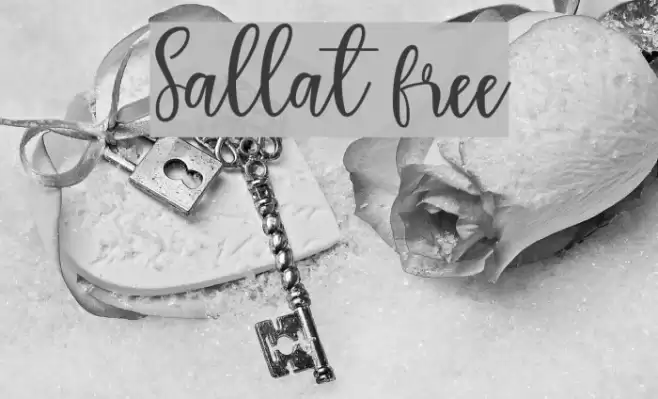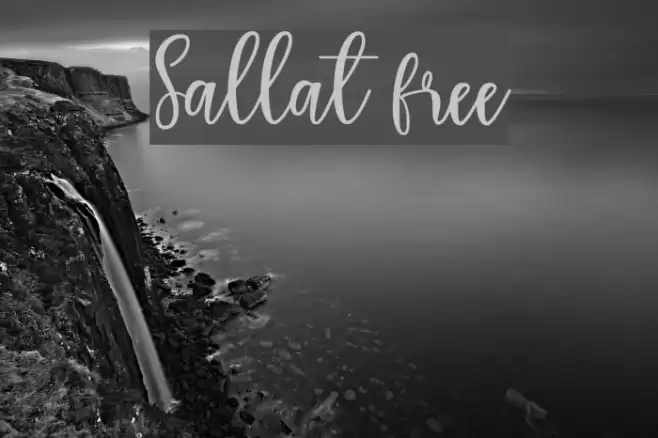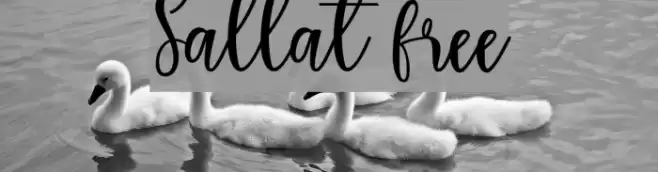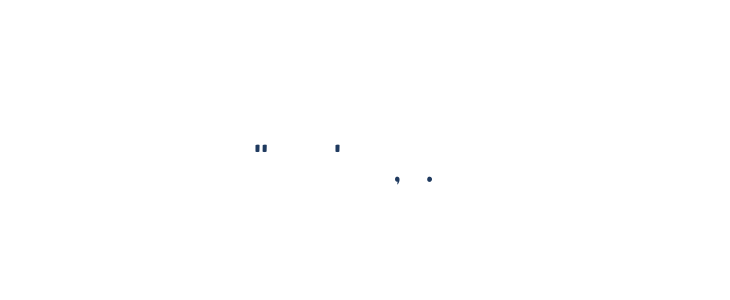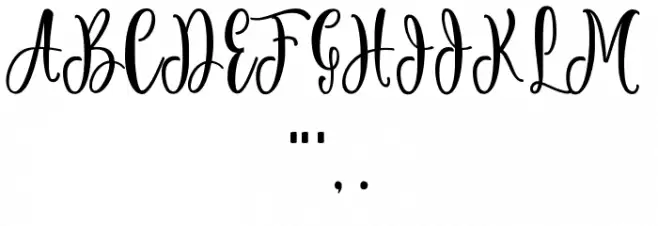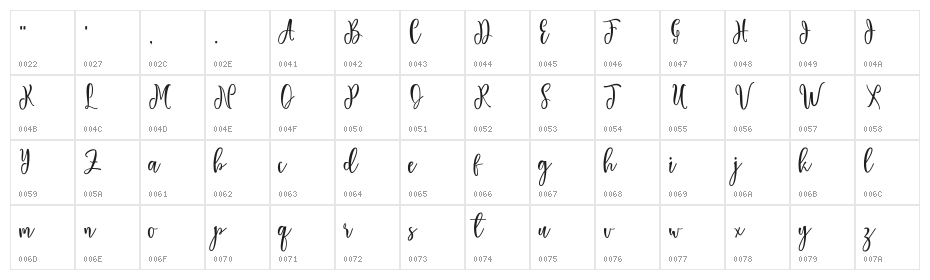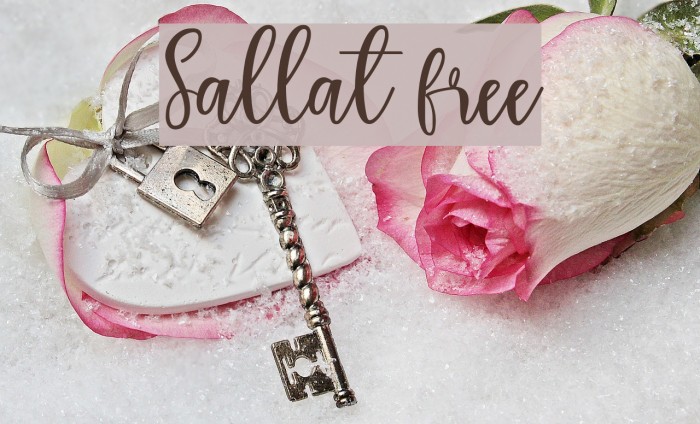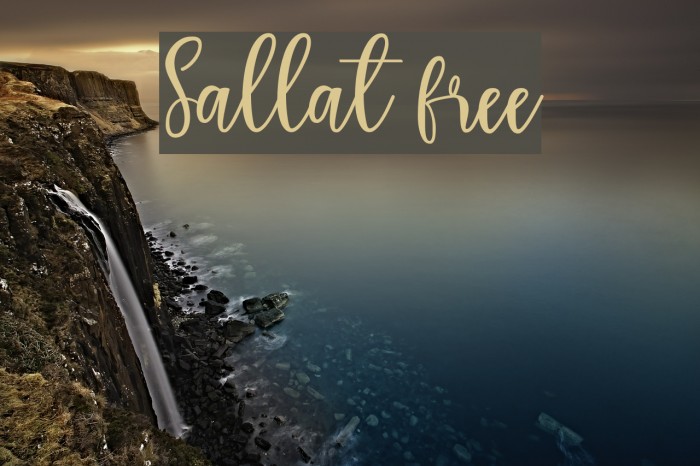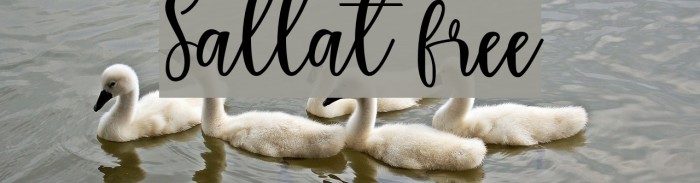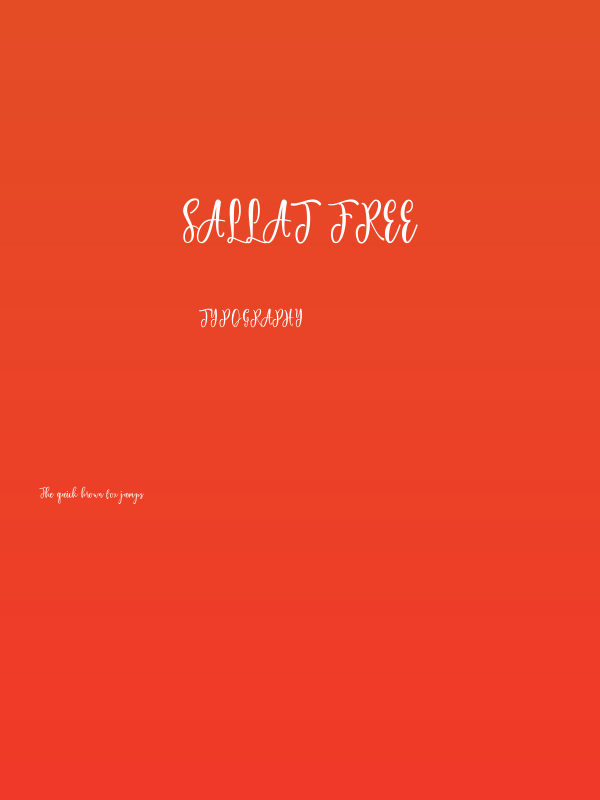
Sallat free Font
Sallat free Description
This font features an elegant and flowing script style, characterized by its smooth, cursive letterforms that exude a sense of sophistication and grace. The uppercase letters are ornate and decorative, with intricate loops and swirls that add a touch of flair. The lowercase letters maintain a consistent flow, complementing the uppercase with their rounded and connected strokes. The overall design is reminiscent of traditional calligraphy, yet it maintains a modern appeal. The font's playful yet refined nature makes it suitable for a variety of creative applications. Its distinct personality is further enhanced by the inclusion of special characters that seamlessly integrate with the alphabet, offering versatility in design.
An elegant, flowing script font with ornate, cursive letterforms from Uncategorized fonts.
- Proposed Projects: Ideal for wedding invitations, greeting cards, branding, and logo design.
- Use Case: Logos, Invitations, Decorative text